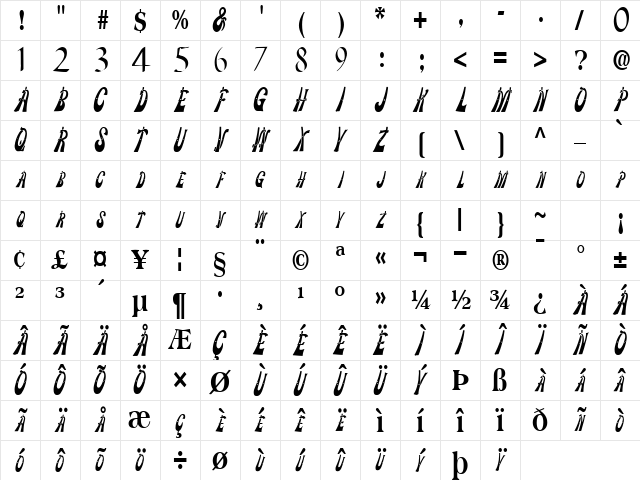
Complete Ribbon Regular glyph index. Displaying only characters natively supported by Ribbon Regular font.
Ribbon is a composed and adaptable typeface that performs quietly and consistently across a wide range of design contexts.